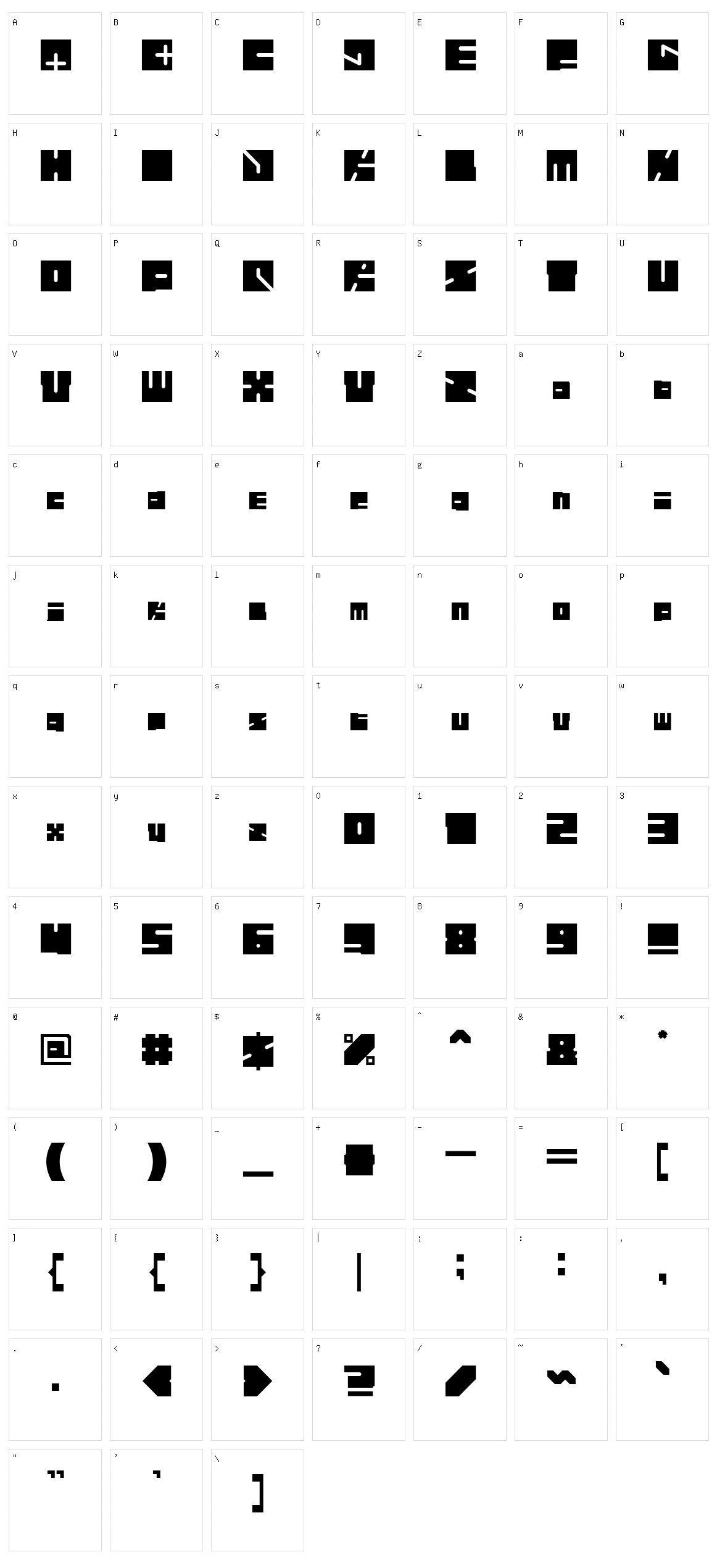
The free font Highway Patrol is carefully designed by weknow, showcasing a thoughtful balance of creativity and usability and falls under the Square font style. When you download the ZIP file, it contains only 45.16 KB of font files, making it lightweight and quick to download. Please review the license details below to understand permitted usage and distribution rights. If license information is not available, we recommend using this font for personal projects only or contacting the author directly for commercial usage permissions.